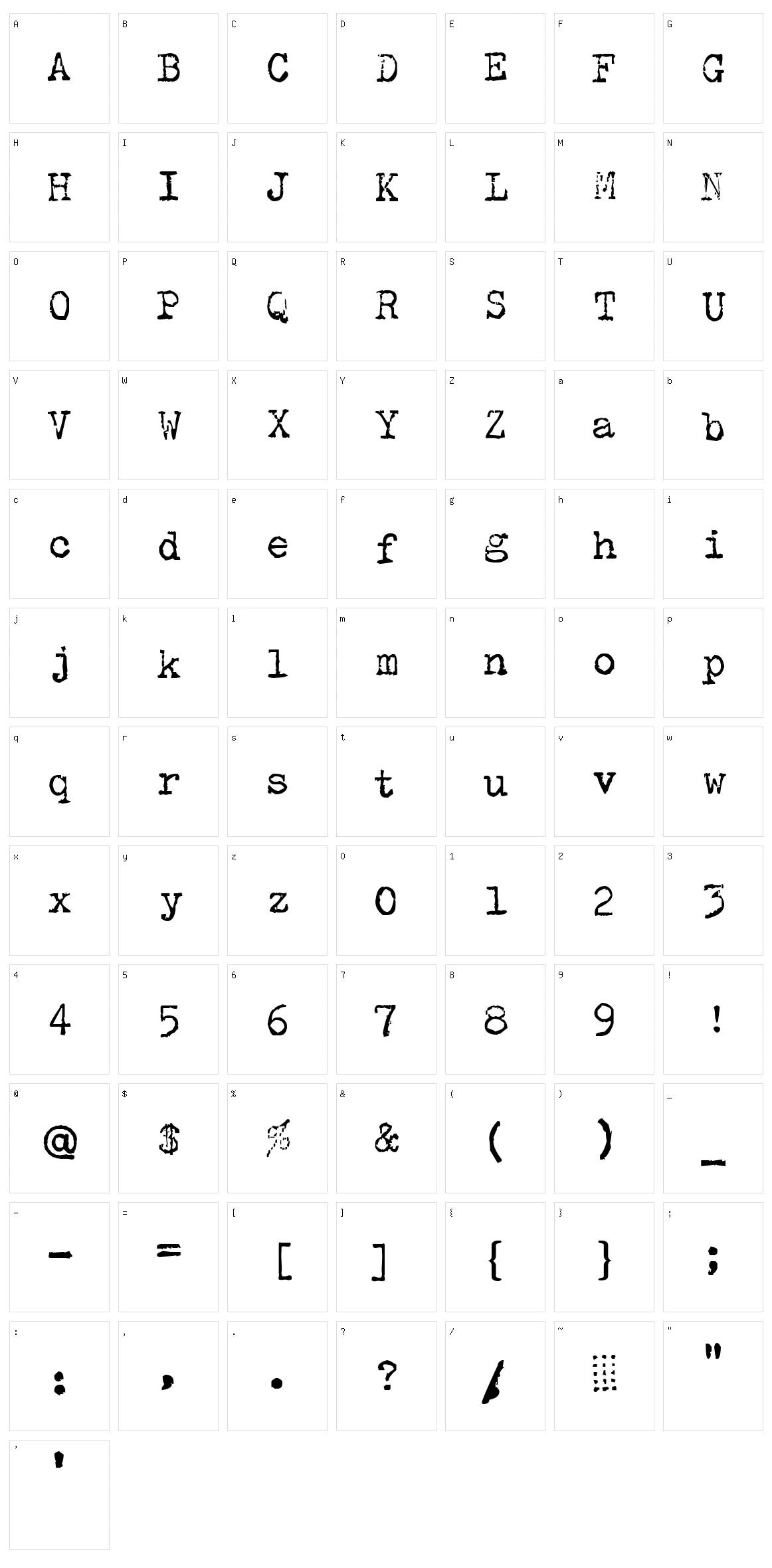
The free font Olivetti Type 2 is carefully designed by Hernan Asorey, showcasing a thoughtful balance of creativity and usability and falls under the Typewriter font style. When you download the ZIP file, it contains only 25.09 KB of font files, making it lightweight and quick to download. Please review the license details below to understand permitted usage and distribution rights. If license information is not available, we recommend using this font for personal projects only or contacting the author directly for commercial usage permissions.